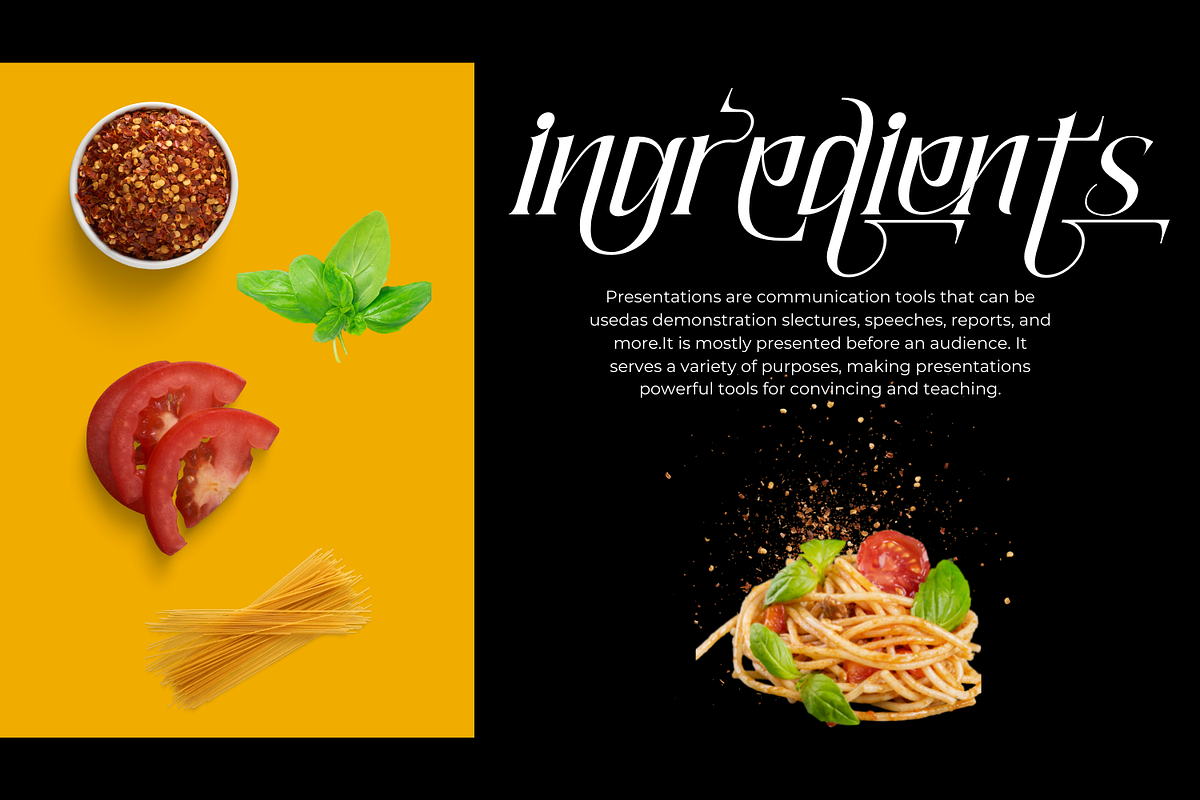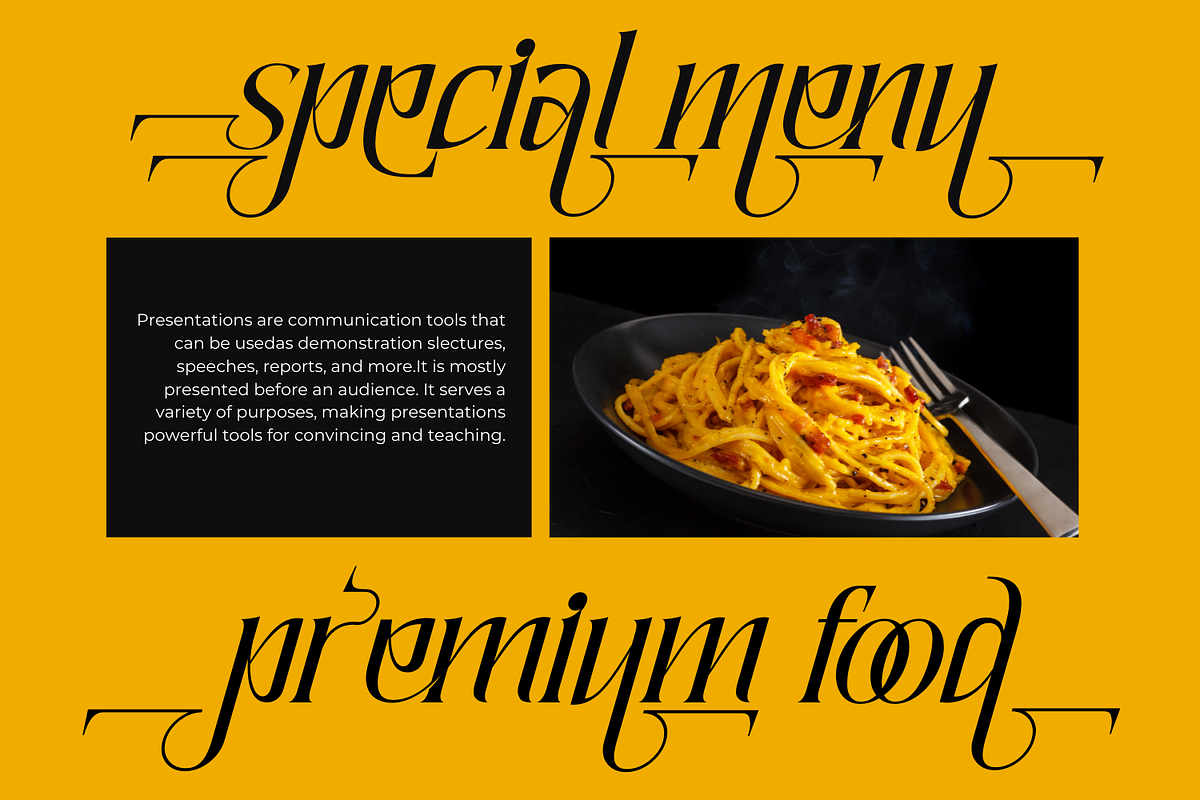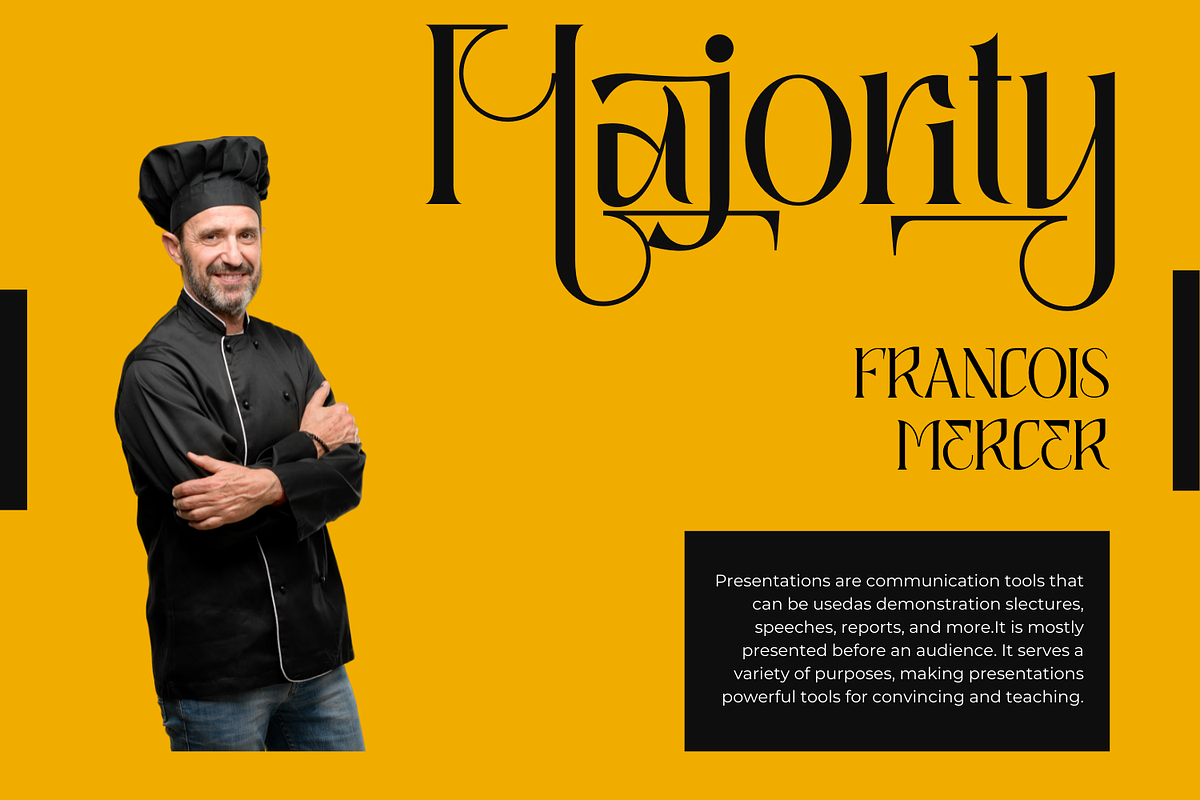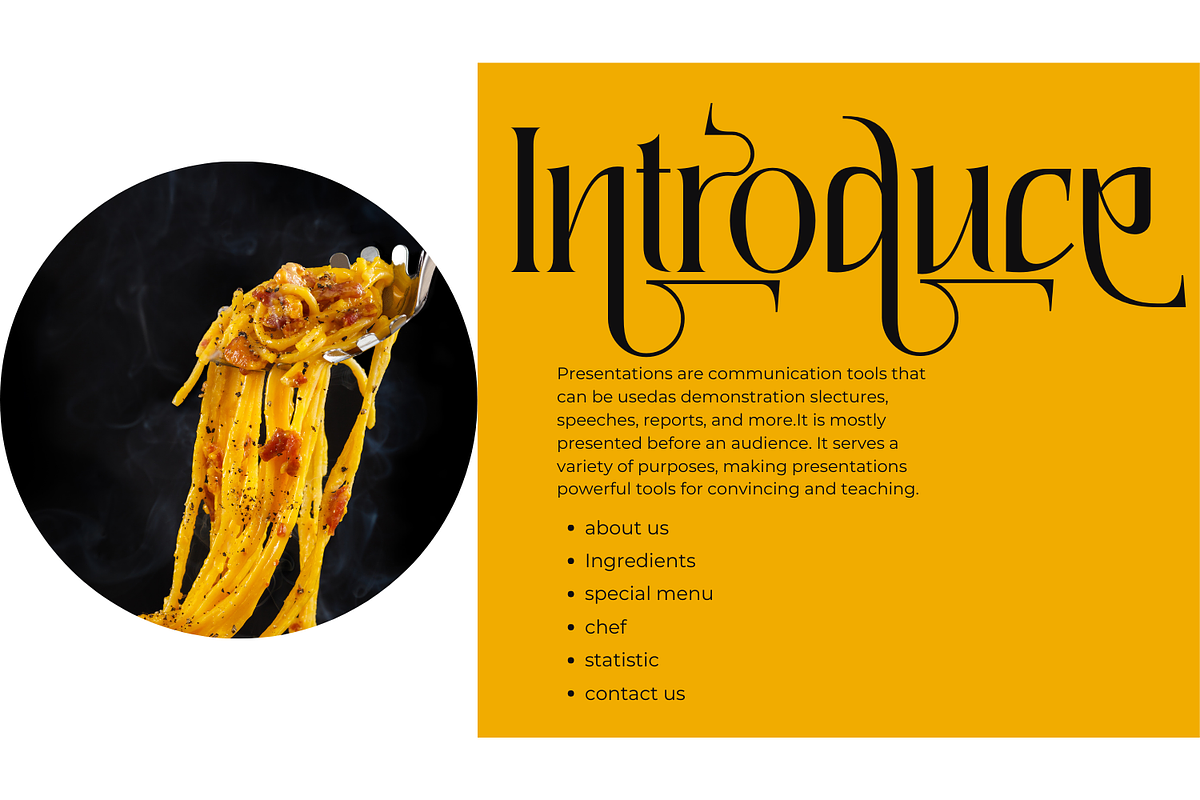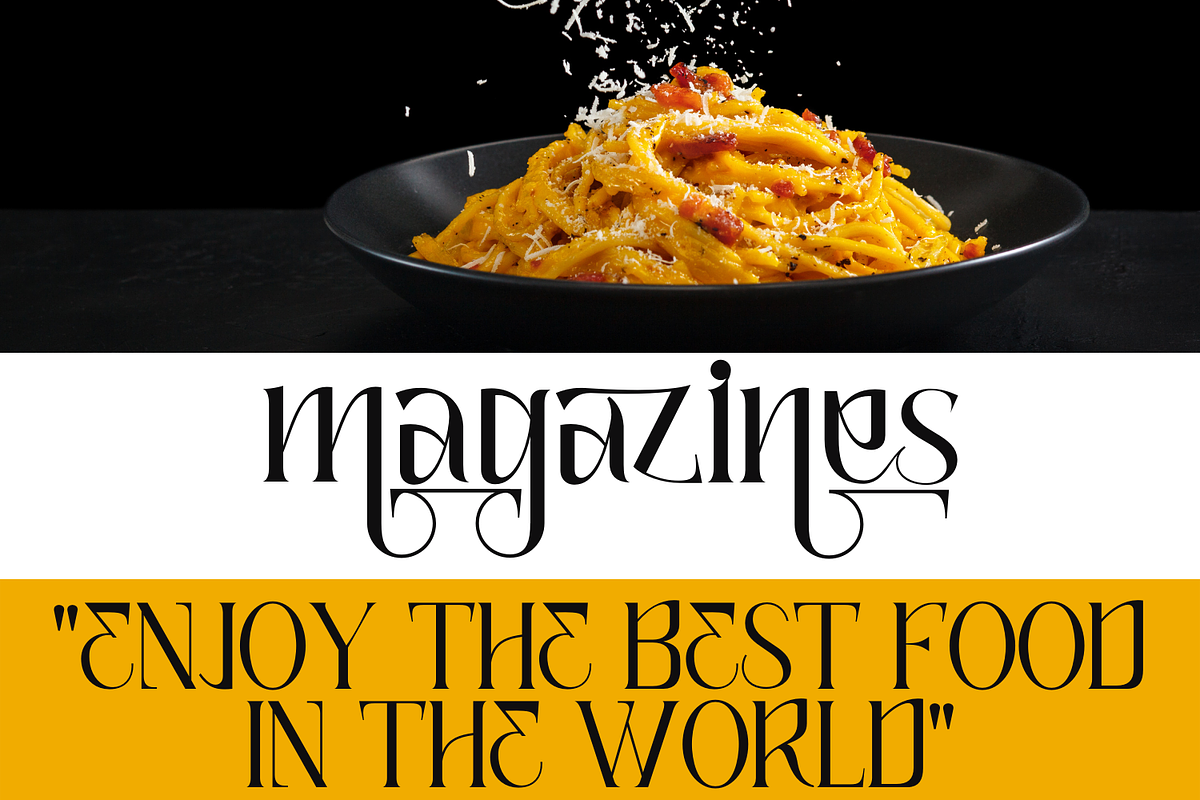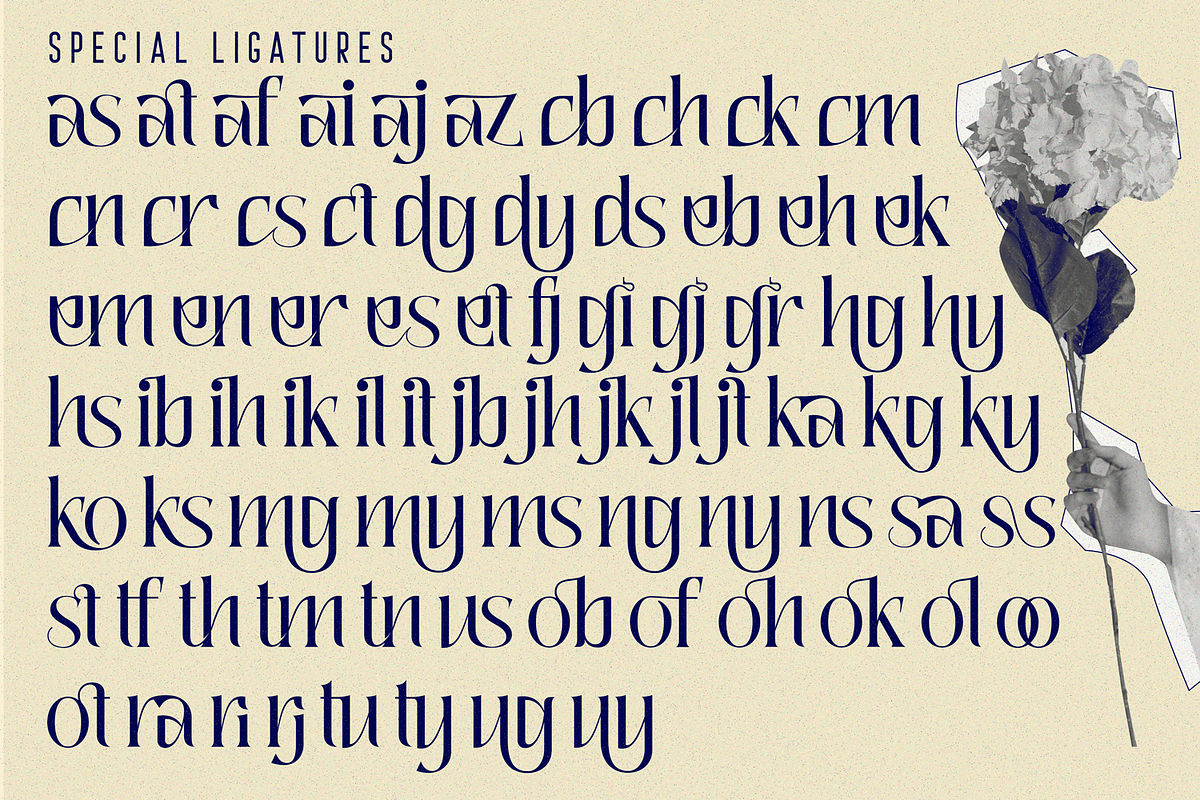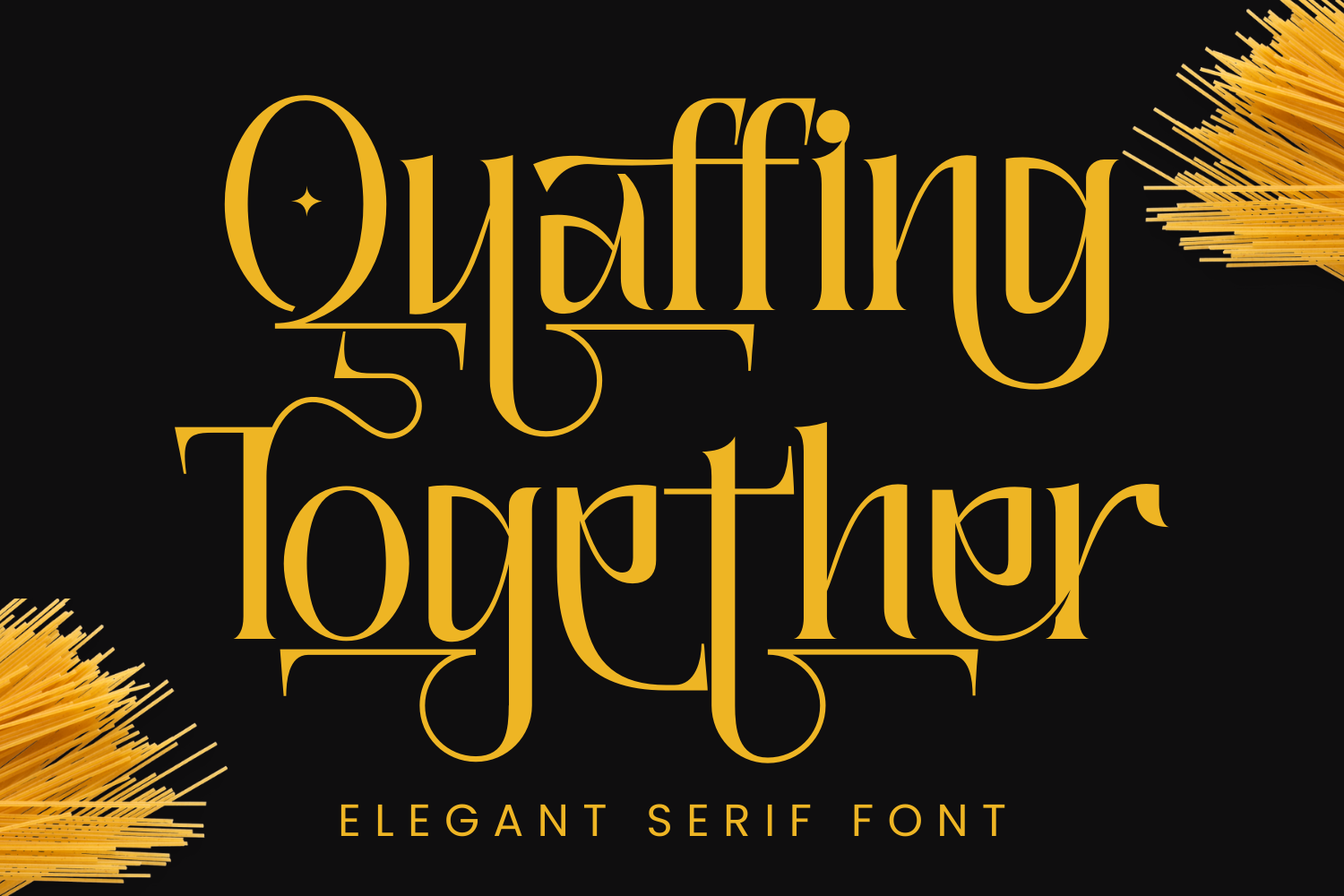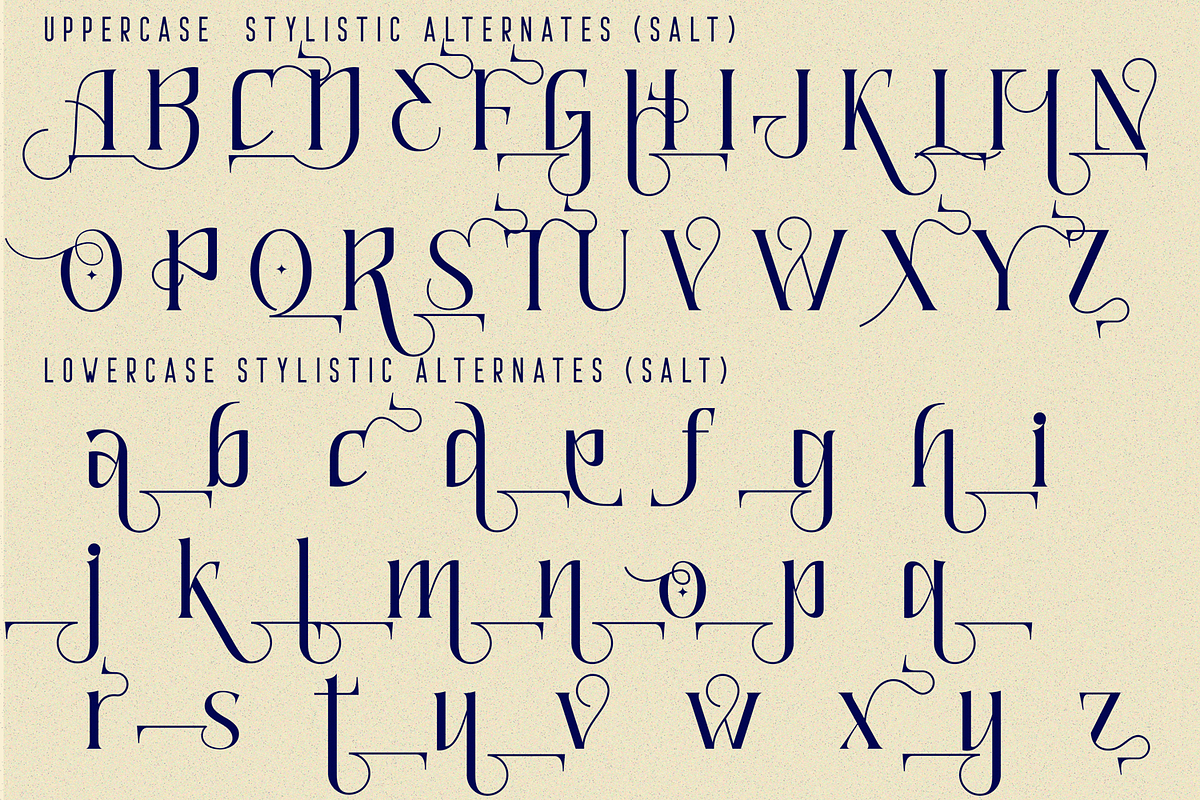
Quaffing Together - Modern Font
Quaffing Together Font is an Elegant & Modern Serif typeface that looks incredible in both large and small settings as a display with italic version. Trendy, classy & modern style serif font for your fancy projects. Elegant, fashion and classic style will be great for any branding project. Lot of alternates and ligatures will help you to create unique and original logo design or website header! Enjoy :)
To make it look more unique, here we prepared some ligatures:
as at af ai aj az cb ch ck cm cn cr cs ct dg dy ds eb eh ek em en er es et fj gi gj gr hg hy hs ib ih ik il it jb jh jk jl jt ka kg ky ko ks mg my ms ng ny ns sa ss st tf th tm tn ux ob of oh ok ol oo ot ra ri rj tu ty ug uy
Quaffing Together is also included full set of:
- Special Ligatures
Accented characters